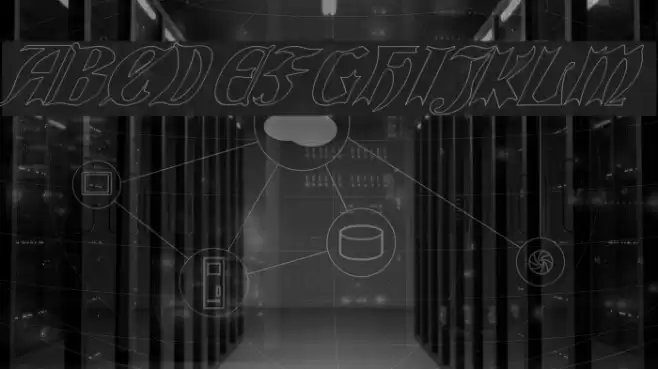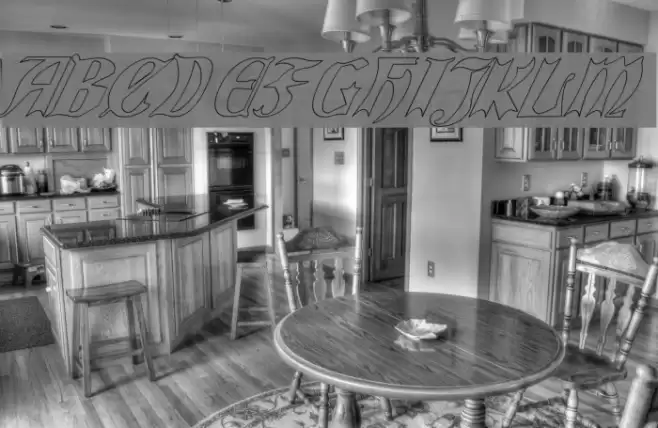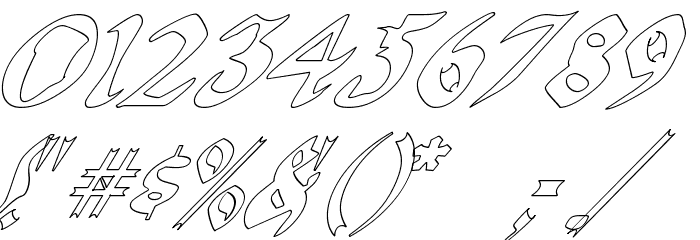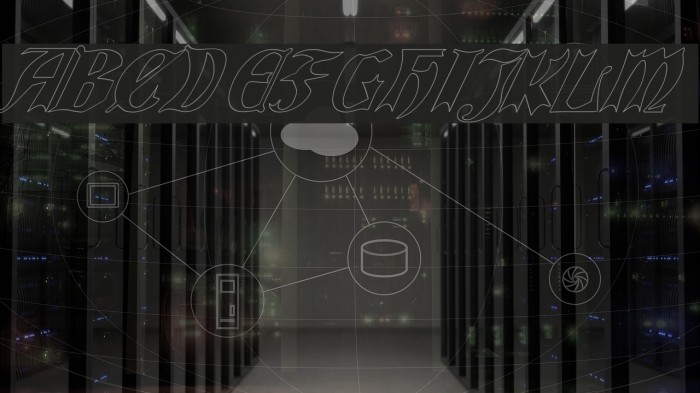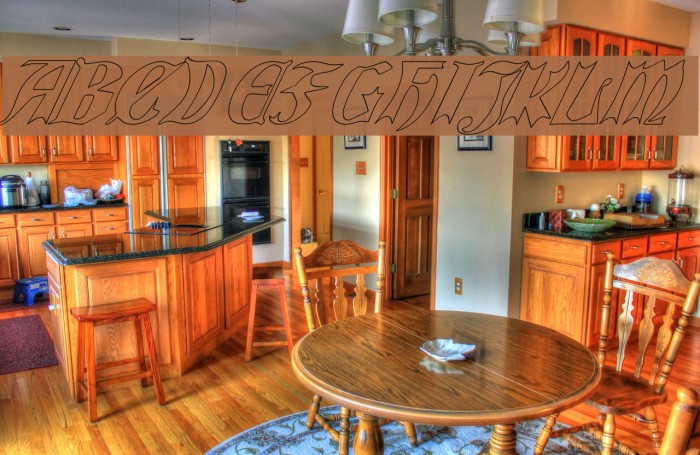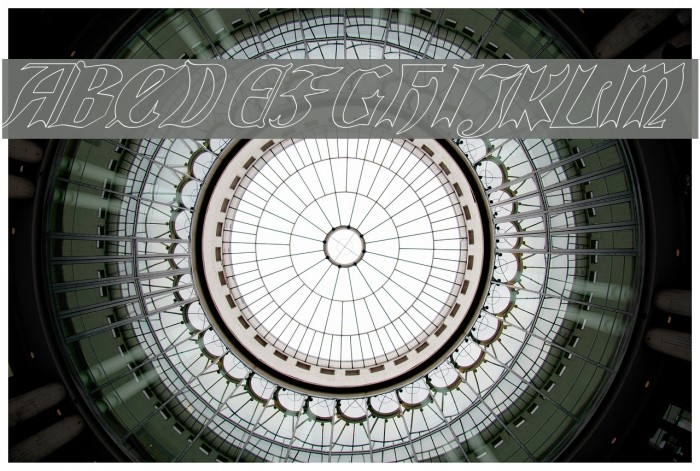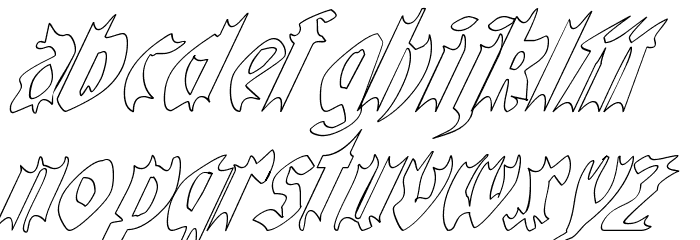
QuaelGothicHollowItalics Font
QuaelGothicHollowItalics Description
This font features a distinctive hollow design with a gothic flair, characterized by sharp, angular edges and an italicized slant. The uppercase and lowercase letters maintain a consistent style, with exaggerated curves and pointed serifs that give it a dramatic and bold appearance. The numbers and special characters follow the same aesthetic, ensuring a cohesive look across all glyphs. The hollow nature of the font adds a unique touch, making it stand out in any design. Its intricate details and stylized form make it suitable for eye-catching displays.
A hollow, italicized gothic font with sharp, angular edges and dramatic flair from Gothic fonts.
- Proposed Projects: Ideal for posters, album covers, branding for edgy or alternative products, and any project requiring a bold, gothic aesthetic.
- Overall Style: Gothic, Decorative